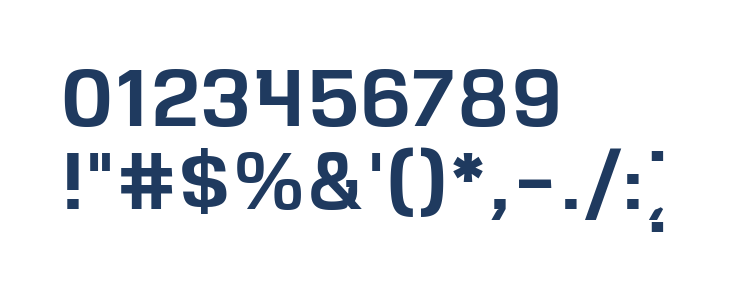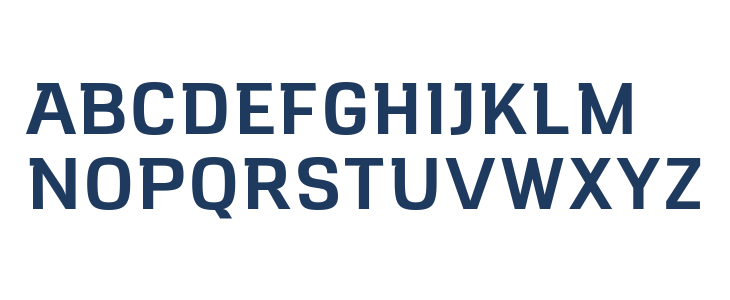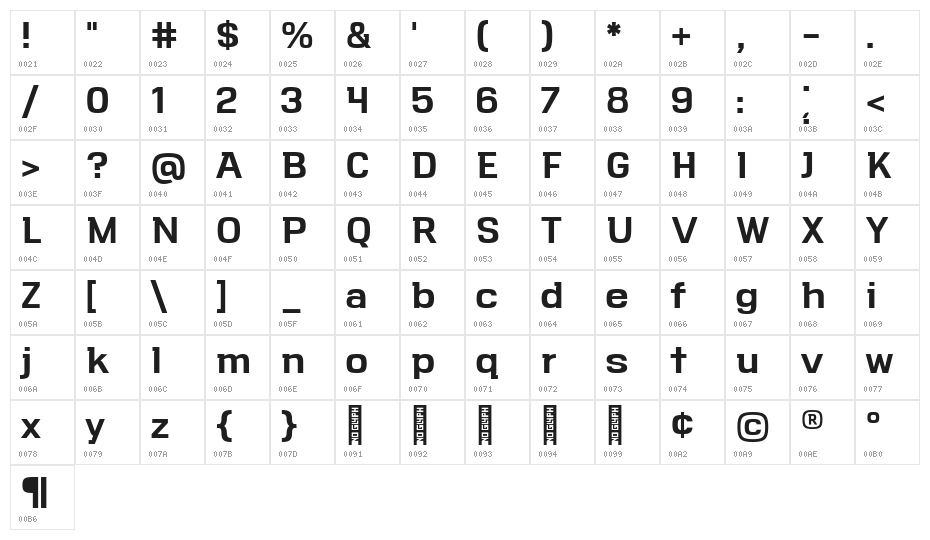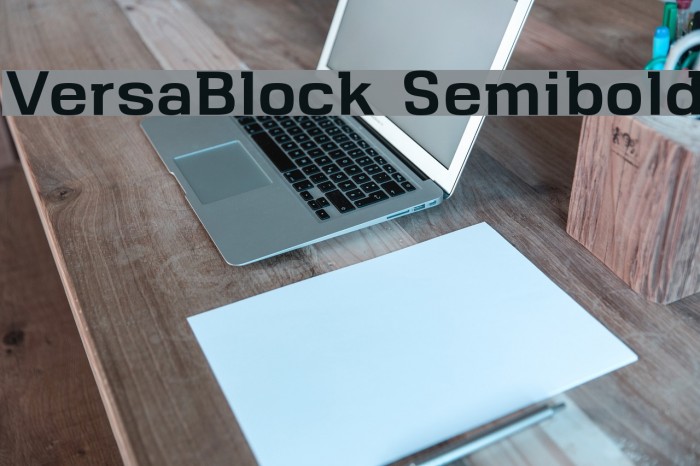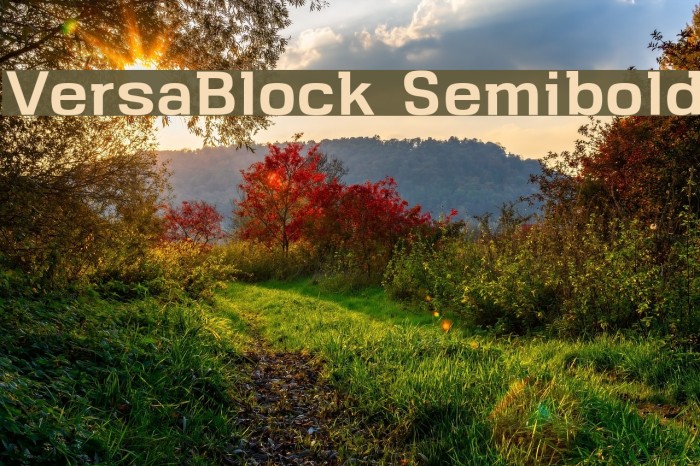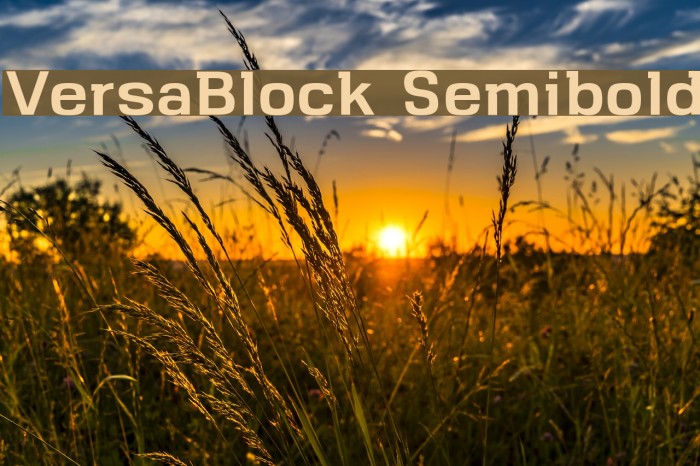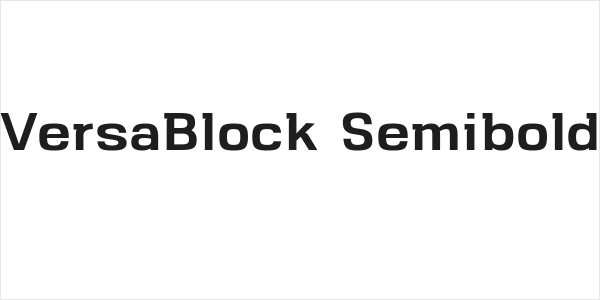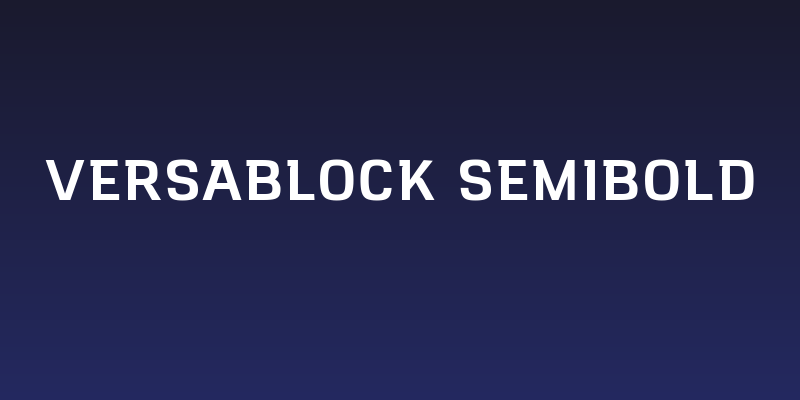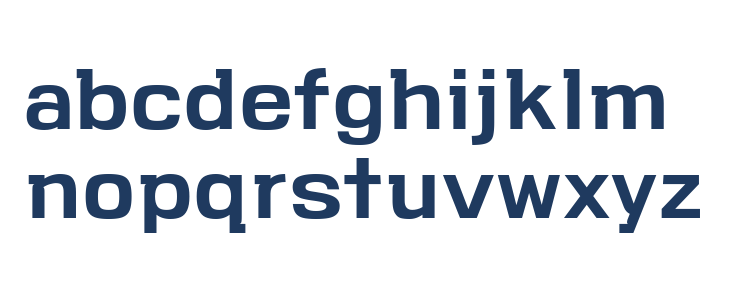
VersaBlock Semibold Font
VersaBlock Semibold Description
This font exhibits a bold and structured appearance, characterized by its strong geometric shapes and clean lines. The uppercase letters are uniformly sized, providing a sense of balance and stability. The lowercase letters maintain a consistent height, contributing to the font's cohesive look. Numbers are clear and legible, making them suitable for various applications. The special characters are well-defined, ensuring versatility in design projects. Overall, this font's modern and robust style makes it ideal for impactful headlines and branding materials.
| Proposed Projects | Ideal for branding, headlines, posters, and digital media where a strong visual impact is needed. |